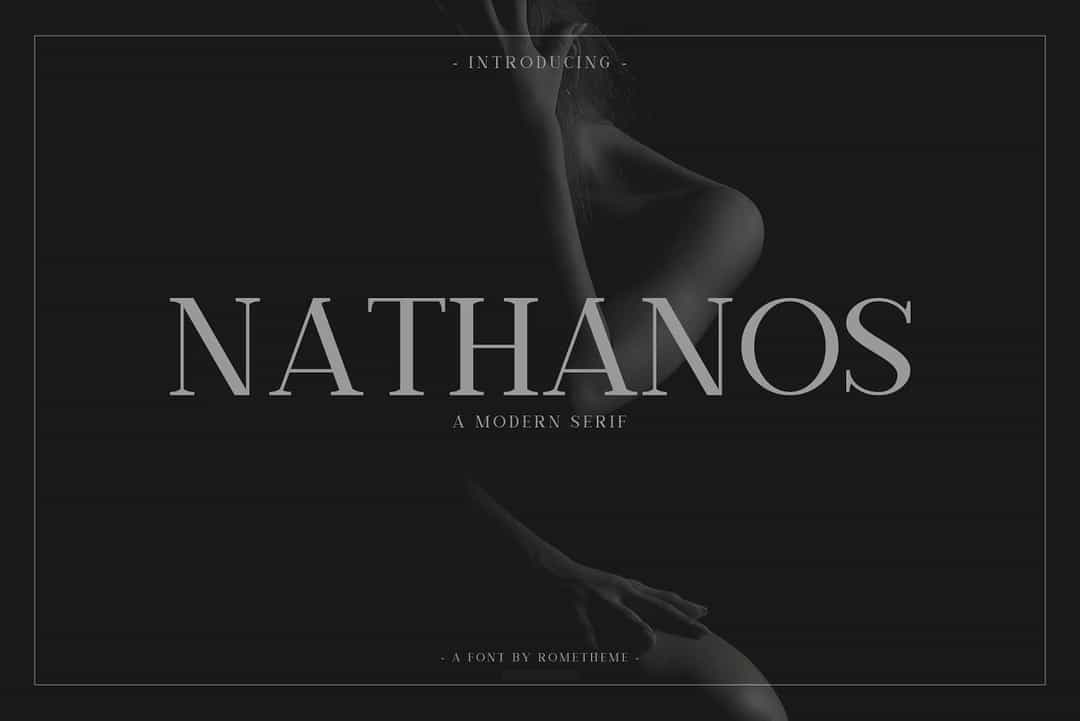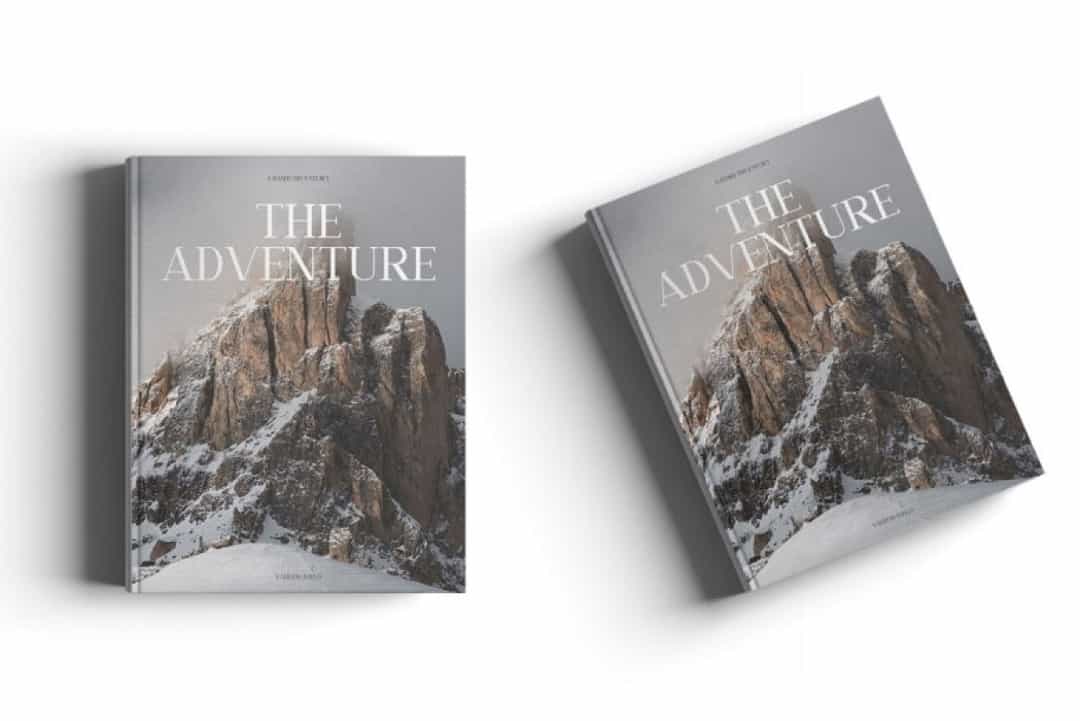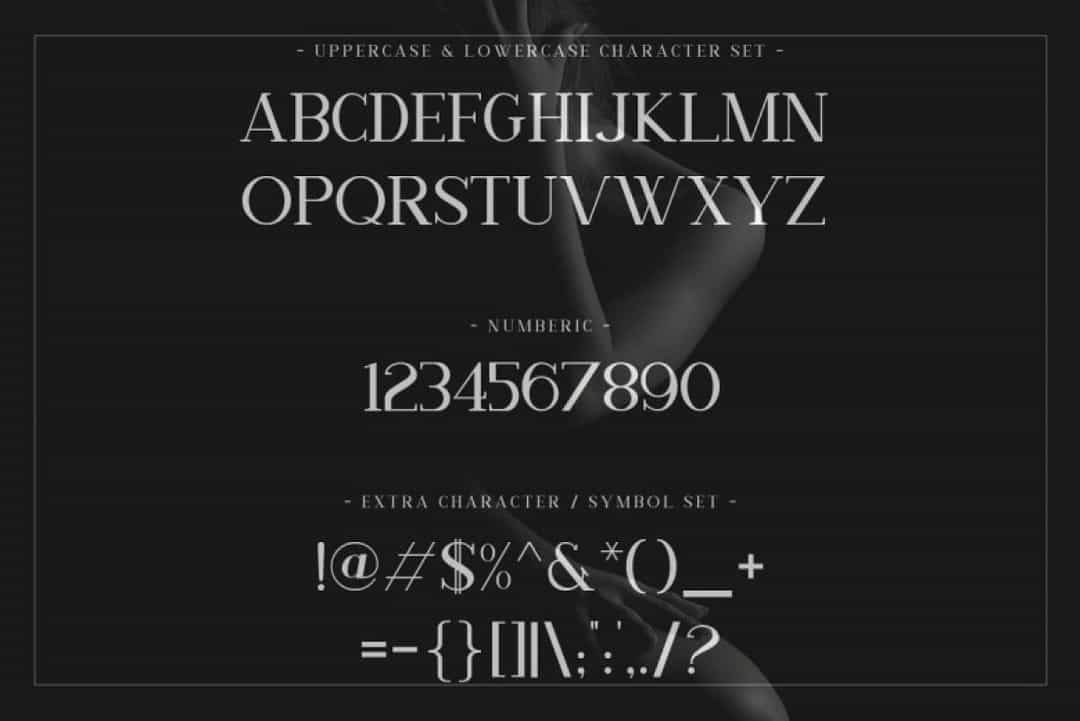
Nathanos is a modern and clean serif font. It has a large set of capital letters and punctuation marks, support for multiple languages and numerals for getting the best typing experience.